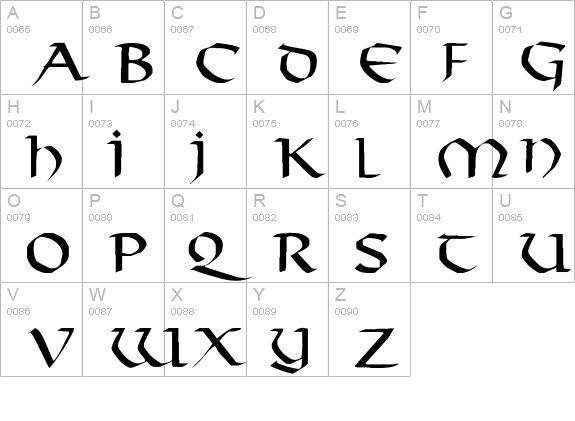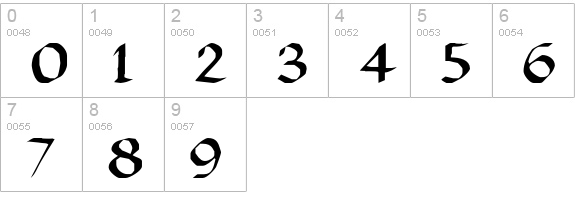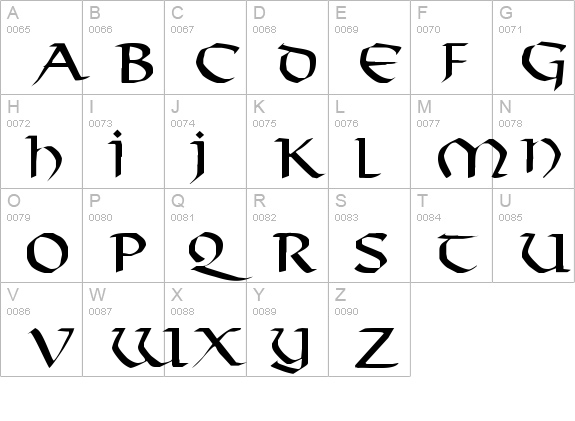
Viking Font Details
Introducing the Viking font, a bold and powerful typeface that embodies the spirit of the legendary Norse warriors. With its intricate letterforms and rugged edges, this font captures the essence of Viking culture, evoking images of longships sailing across stormy seas and fearless warriors charging into battle. The Viking font is an ideal choice for projects that require a touch of ancient strength and historical authenticity. From logo designs and posters to tattoo art and book covers, this font will add a fierce and fearless appeal to any creative endeavor. One of the best features of the Viking font is that it is freely available to download at FontsMarket.com. Whether you are a designer looking to add a unique touch to your work or a history enthusiast wanting to explore the rich heritage of the Vikings, this font is a must-have. Its availability for free ensures that anyone can access and enjoy its captivating design, without any restrictions or limitations. Embrace the power of the Viking font and unleash your creativity with this versatile typeface. Download it now from FontsMarket.com and embark on a journey through time, where the legacy of the Vikings lives on in every letter.